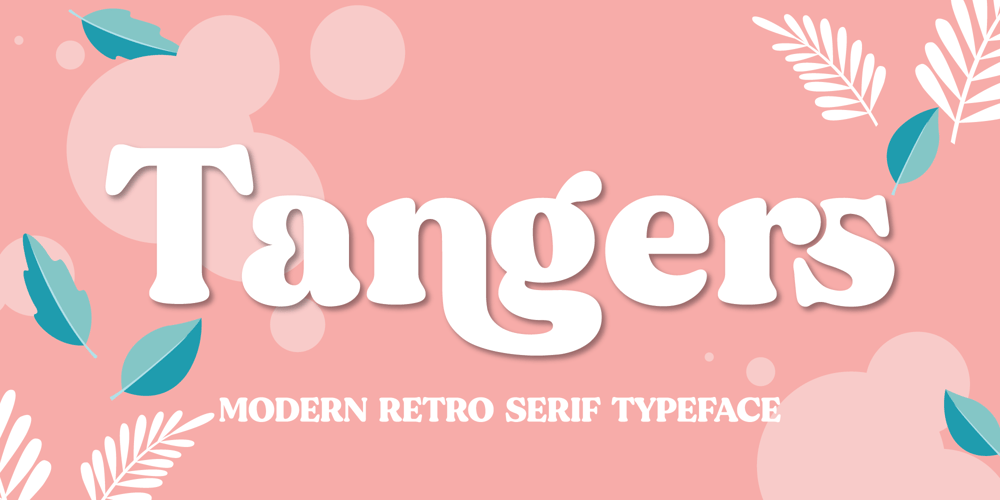
Tangers Font Family was designed by El Mehdi CHOUYOUKH and published by Mchcrafter. Tangers contains 1 styles and family package options. Tangers font is a trendy, bold and stylish serif font. It is PUA encoded which means you can access all glyphs and swashes with ease!Add it confidently to your favorite creations and let yourself be amazed by the outcome generated.Tangers includes: All uppercase & lowercase letters All numbers 0-9 & Punctuation Ligatures & Alternates Symbols Multiligual Letters